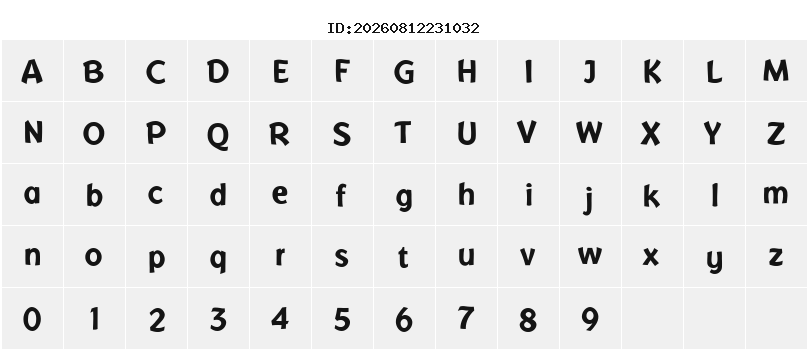
ResPublica Preview
• Font Name: ResPublica
• Font ID: ResPublica
• Full Font Name: ResPublica
• PostScript Name: ResPublica
• Character Count: 255
• Copyright: CybaPee Creations for Font Campaign 2000
About ResPublica.ttf
ResPublica.ttf is a modern, elegant sans-serif font designed for ultimate readability and visual harmony. Perfect for branding, headlines, web design, and print materials.